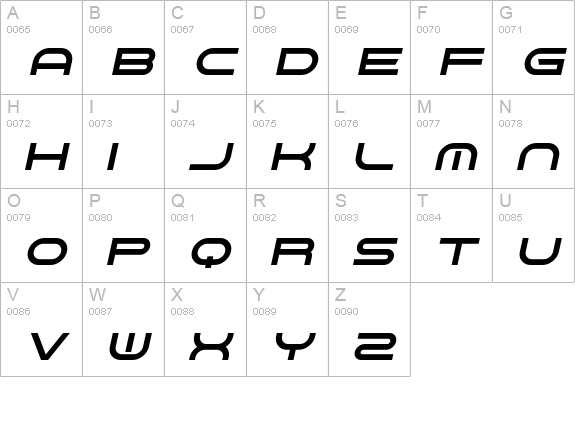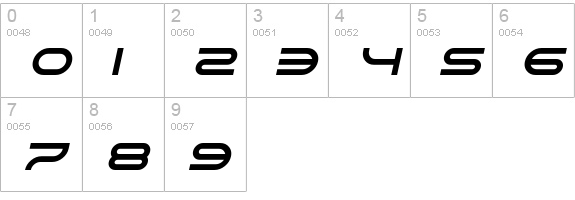
Gnaw Hard Italic Font Details
Gnaw Hard Italic is a distinctive, italic variant in the Gnaw typeface family \xE2\x80\x94 well suited to design and typography projects.
The Gnaw Hard Italic font is a bold and dynamic typeface that exudes strength and confidence. Its sharp angles and aggressive slant give it a edgy and modern look, making it perfect for headlines, titles, and other attention-grabbing design projects. The font's stylized letterforms are sure to make a statement and leave a lasting impression on any viewer. What's even better is that Gnaw Hard Italic font is available for free download at FontsMarket.com. This means that you can easily access this striking typeface and incorporate it into your designs without any cost. Whether you're working on a branding project, poster design, or website layout, Gnaw Hard Italic font will bring a powerful and impactful element to your work. Download it today and unleash its bold energy in your next creative project.